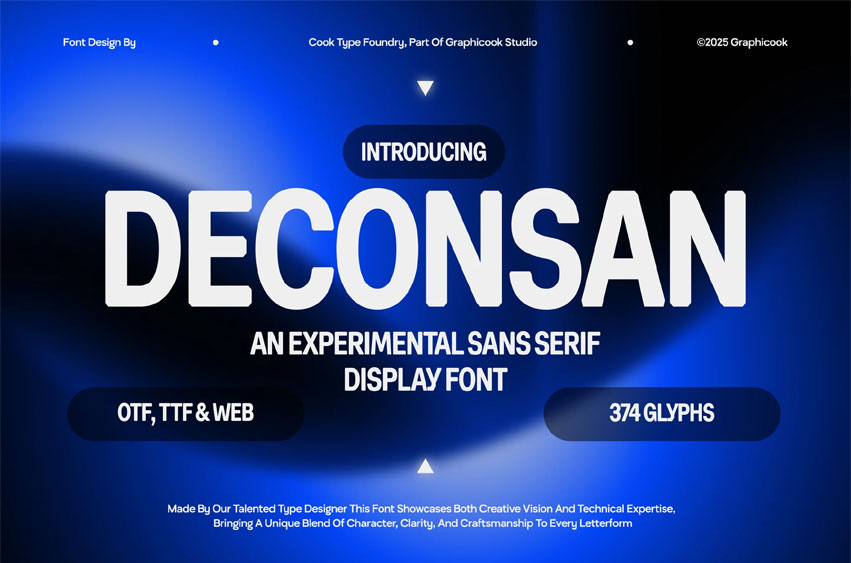
Deconsan Font is a decorative experimental font with an asymmetric style that gives off a futuristic, unconventional vibe. Perfect for technology-driven or contemporary designs.
Deconsan is perfect for headlines, logotypes, magazines, packaging, quotes, movies, games, cover albums, book covers, and flyers. It’s a perfect solution for creating eye-catching designs that stand out in any context.